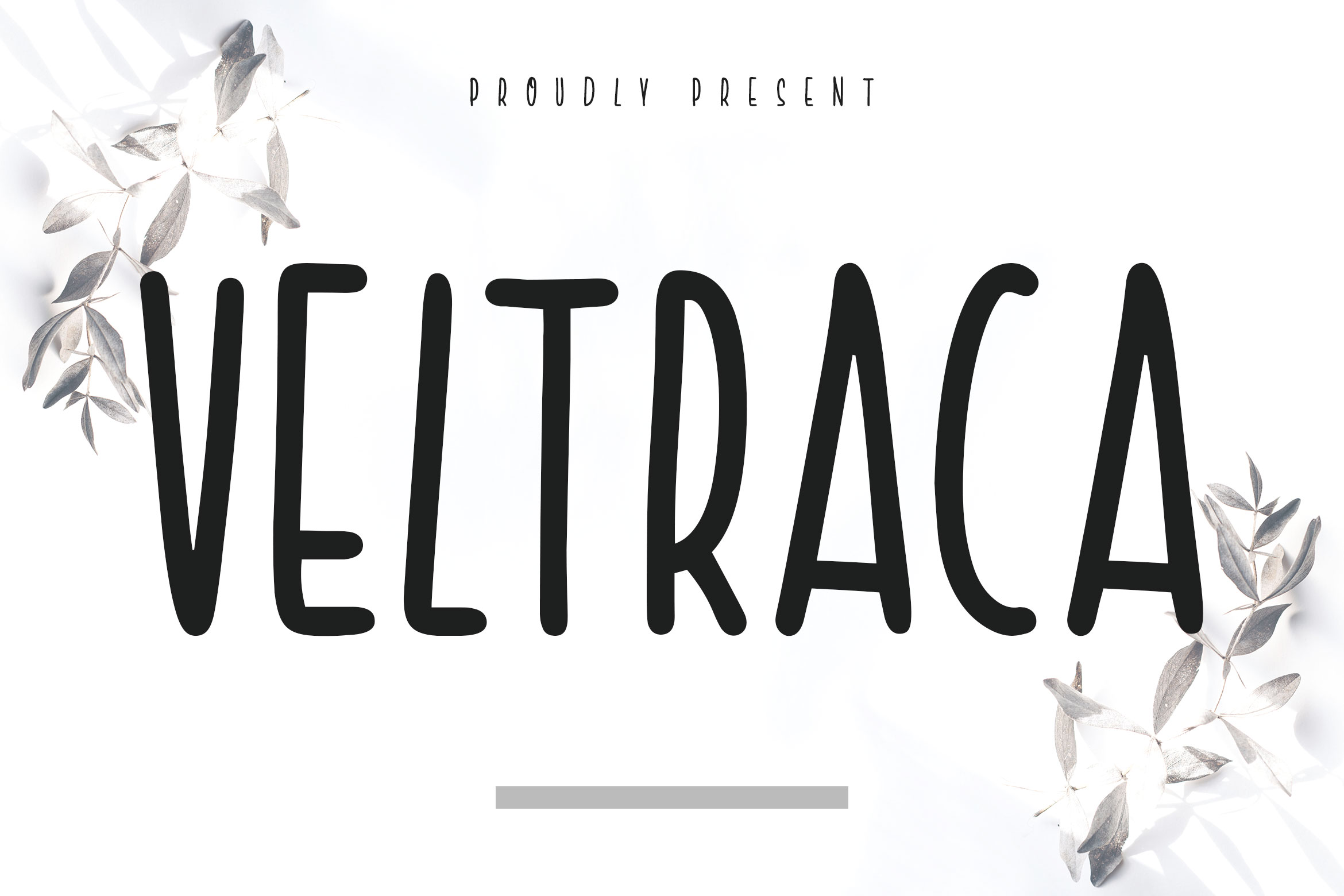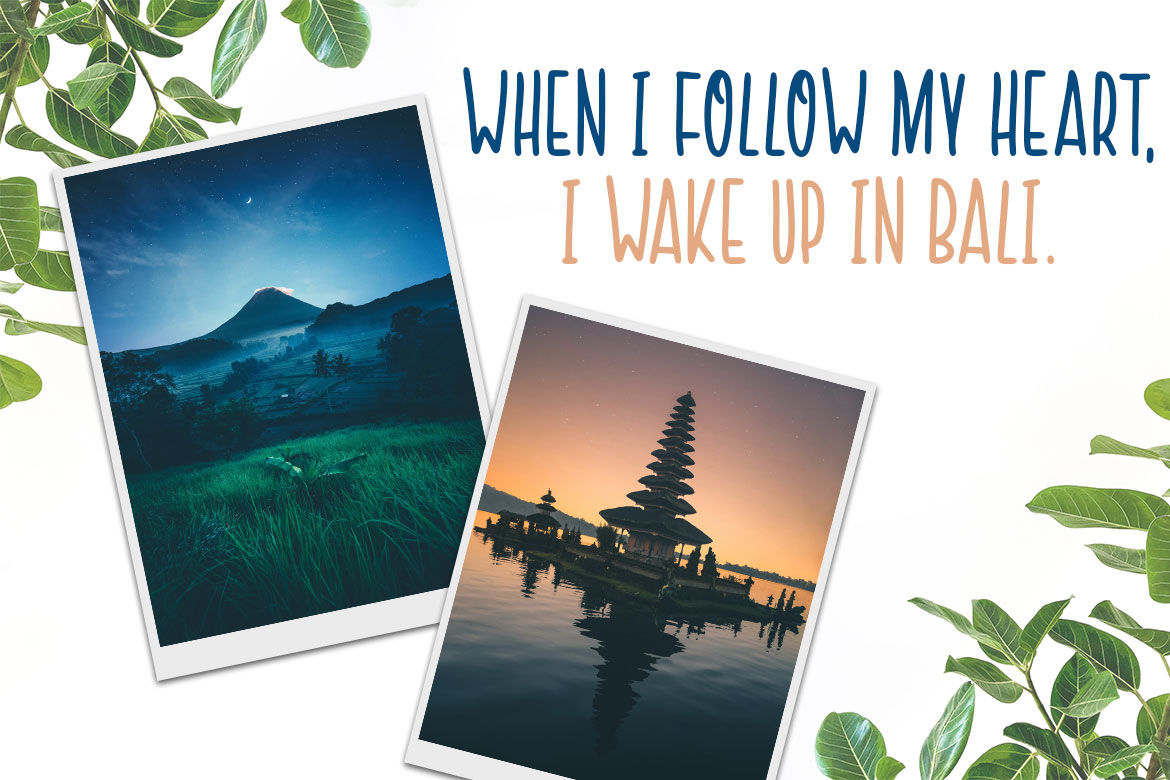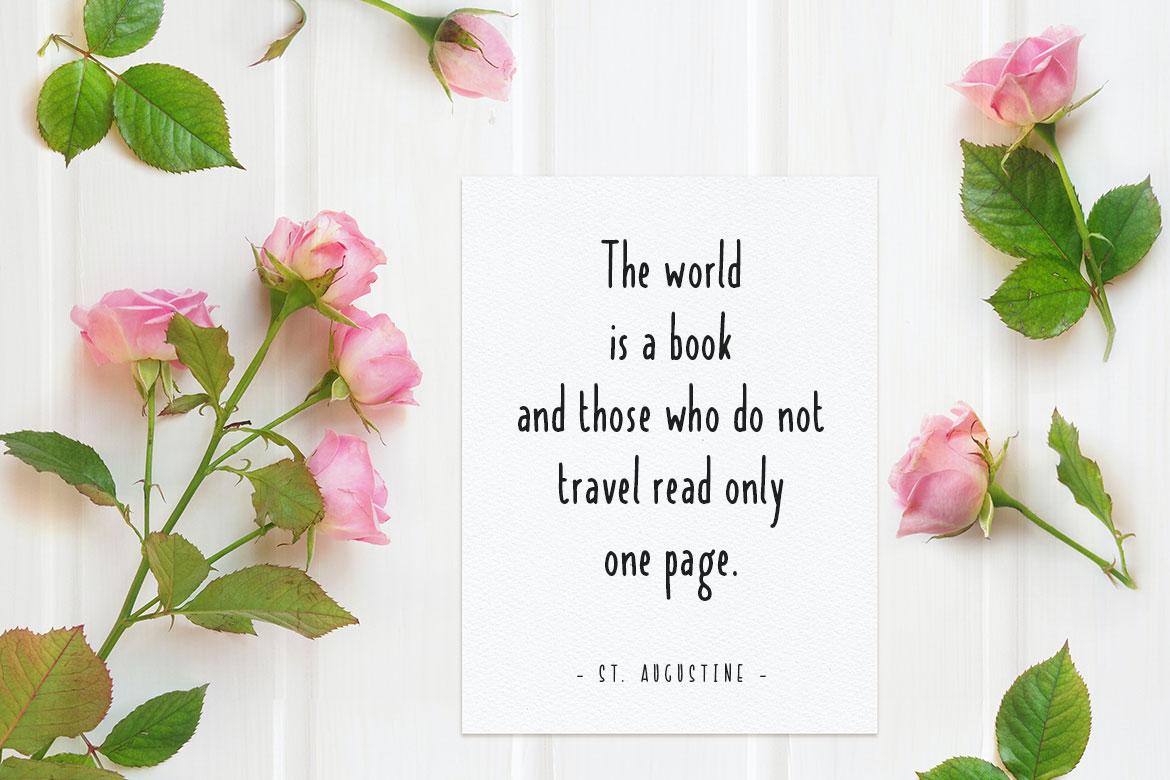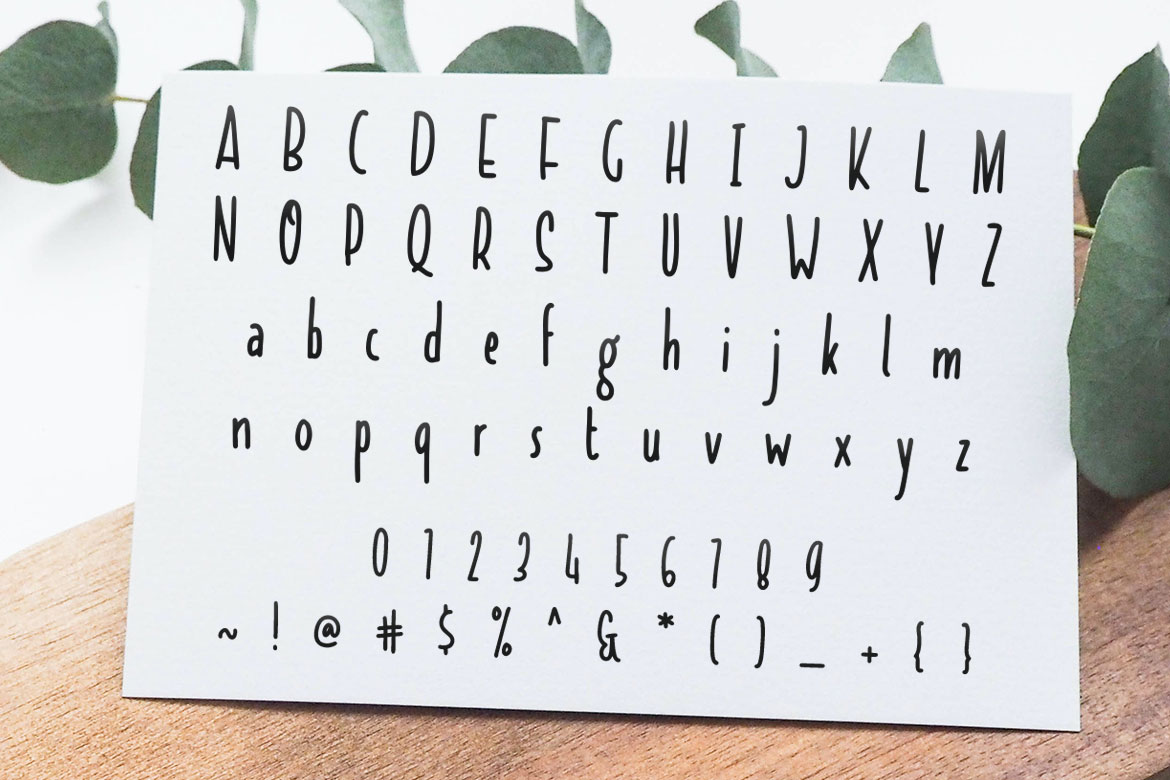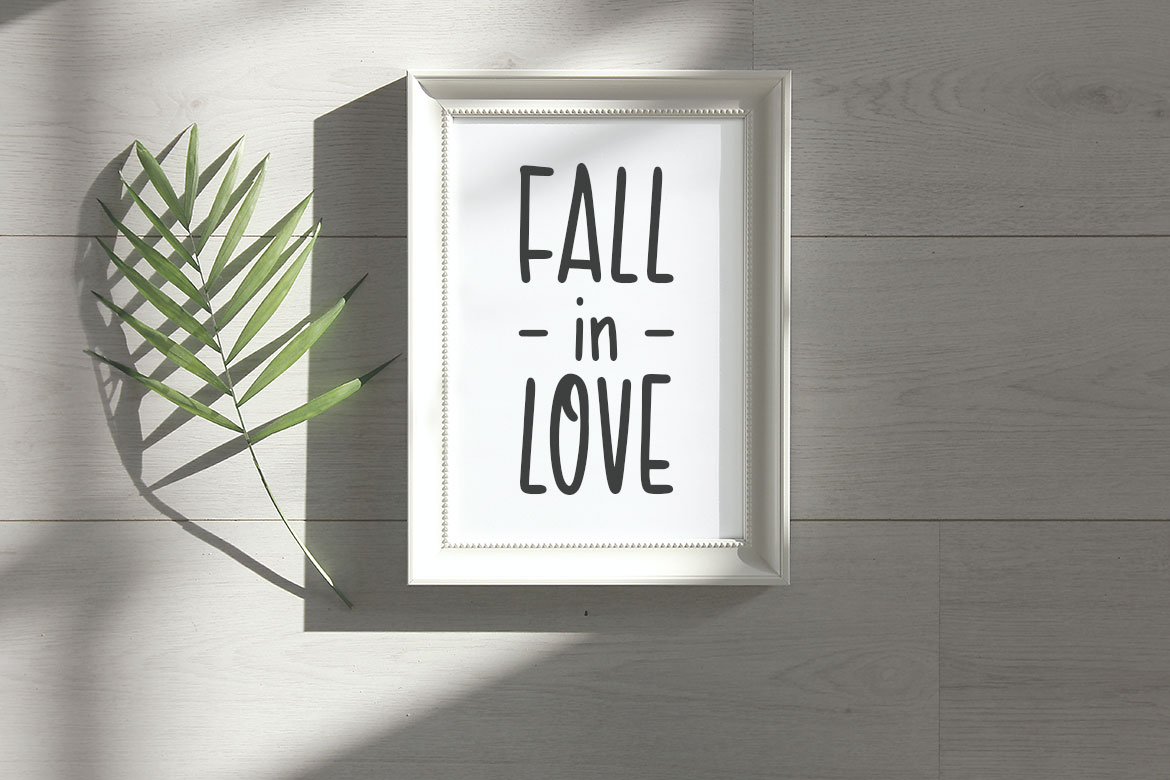
Veltraca is a modern handwritten display font with a tall, narrow structure and a casual, approachable personality. Its clean yet quirky letterforms bring a hand-drawn feel that’s perfect for travel quotes, modern branding, lifestyle posters, and minimalistic artwork. The tall ascenders and rounded edges offer a friendly, relaxed look while maintaining excellent readability across various layouts and formats.
This font includes uppercase and lowercase letters, numerals, punctuation, and a variety of special characters to support creative flexibility. Veltraca shines in applications such as social media graphics, greeting cards, product packaging, and wall art. Bringing a calm, elegant vibe with a dash of spontaneity. Its simplicity and charm make it a delightful addition to any designer’s toolkit.
Veltraca